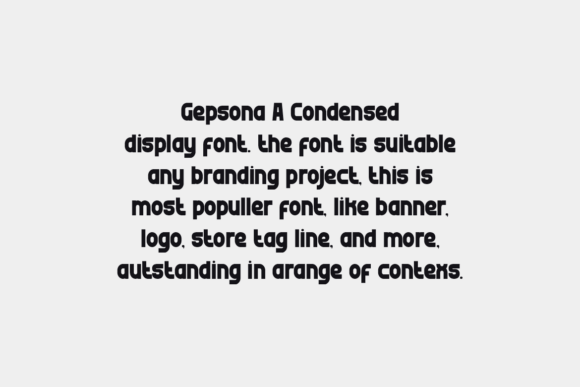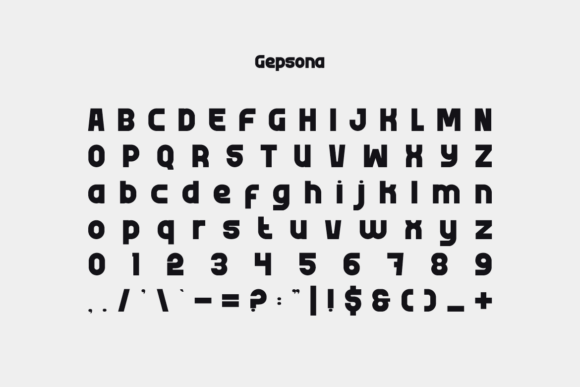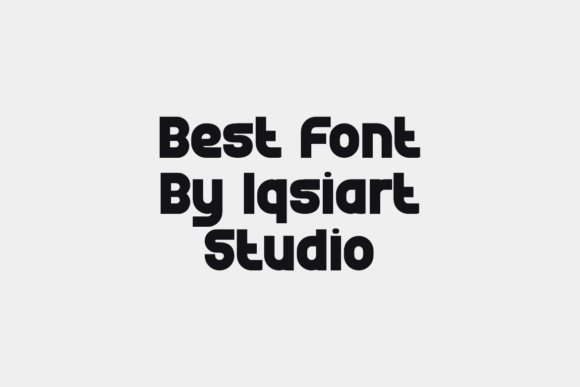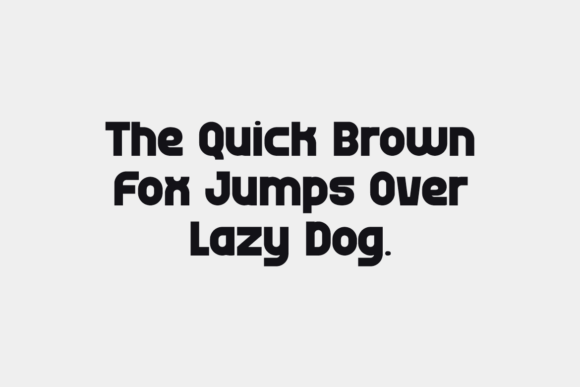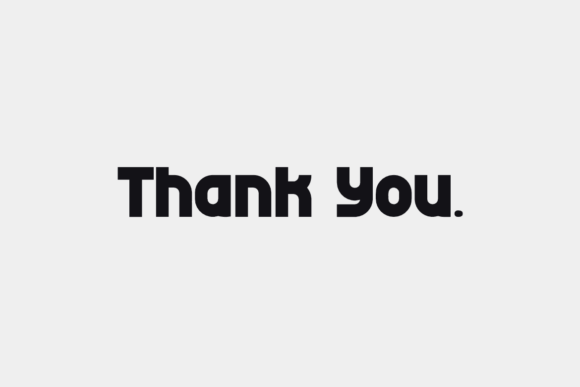
Introduction to Gepsona Font
The moment of truth for designers – when the perfect font finally falls into place, and the creative project starts to come alive. It’s that feeling of knowing you’ve found the perfect partner to elevate your design and leave a lasting impression. For those seeking a font that packs a punch, look no further than the Gepsona Font. This sleek and powerful condensed font is designed to make a statement, with bold, tight letter spacing and clean lines that demand attention.
As a valuable resource for designers, Gepsona Font offers a high-quality solution for creating eye-catching headlines, branding, and editorial design. Its contemporary and professional look makes it an ideal choice for modern marketing, logo design, and fashion branding. With its versatility and style, it’s no wonder designers are turning to Gepsona Font for their next creative project.
Honest Review: Gepsona Font
As a designer, I’m always on the lookout for high-quality fonts to enhance my creative projects. I recently had the chance to try out the Gepsona Font, and here’s my honest review.
- High-quality design: The Gepsona Font boasts a clean and elegant design that’s perfect for both personal and professional projects.
- Transparent background: This feature is a game-changer for designers who need to work with transparent backgrounds, making it easy to combine with other design elements.
- Limited font styles: While the Gepsona Font has a beautiful design, it’s available in a limited number of font styles, which may not be ideal for projects that require a wide range of font options.
- Not ideal for complex designs: Due to its elegant design, the Gepsona Font may not be the best choice for complex designs that require a lot of boldness and contrast.
Overall, I’m impressed with the Gepsona Font’s design quality and the convenience of a free download. While it may not be suitable for every design project, it’s a great resource to have in your design arsenal.
The Gepsona Font is commonly used in a variety of creative projects, including graphic design, digital art, and typography. It’s a versatile font that can be used in a range of applications, from print to digital media.
The Gepsona Font is designed to be scalable, making it suitable for large-scale designs. However, its legibility may vary depending on the font size and resolution. As for language support, the font typically includes a wide range of languages, including Latin, Cyrillic, and